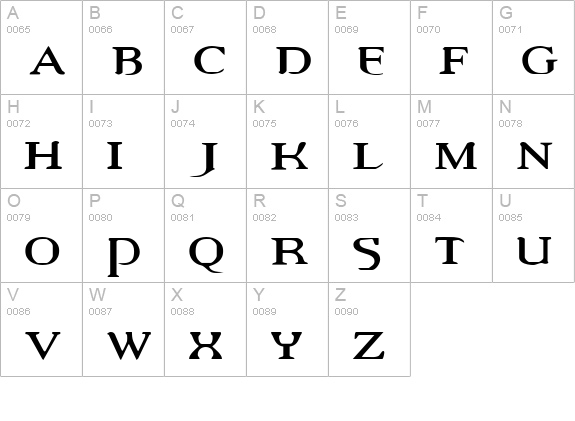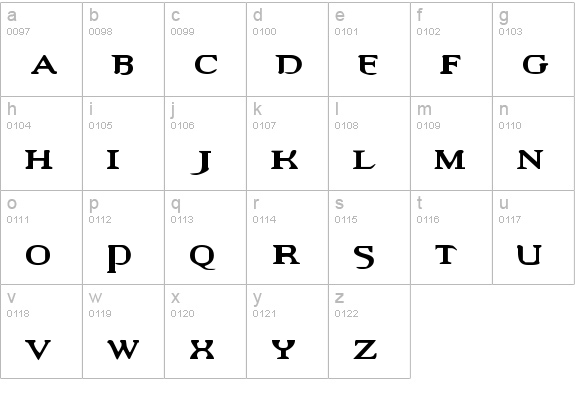
Vampire Revised Edition Font Details
Introducing Vampire Revised Edition, a captivating font that exudes an aura of mystery and darkness. Crafted with intricate details and elegant strokes, this font pays homage to the timeless allure of vampires, bringing their enigmatic presence to life on the page. Vampire Revised Edition font is the perfect choice for those seeking to add a touch of Gothic sophistication to their designs. Whether you are working on a book cover, a movie poster, or simply want to make a statement with your typography, this font will effortlessly draw attention and leave a lasting impression. Not only does Vampire Revised Edition possess an alluring aesthetic, but it also offers the convenience of being freely available to download. Thanks to FontsMarket.com, you can access this mesmerizing font without any cost, making it an invaluable resource for designers and enthusiasts alike. With its versatile nature, Vampire Revised Edition font can be used in a variety of projects. Its elegant curves and sharp edges create a harmonious balance, allowing it to seamlessly blend into any design concept. From spellbinding headlines to enchanting body text, this font adds an exquisite touch to any composition. Embrace the darkness and unleash your creativity with Vampire Revised Edition font. Whether you are capturing the essence of vampires in a gothic novel or adding an air of mystique to your graphic designs, this font is sure to captivate your audience and leave them craving for more. Download it for free at FontsMarket.com and let the irresistible charm of Vampire Revised Edition font inspire your next masterpiece.